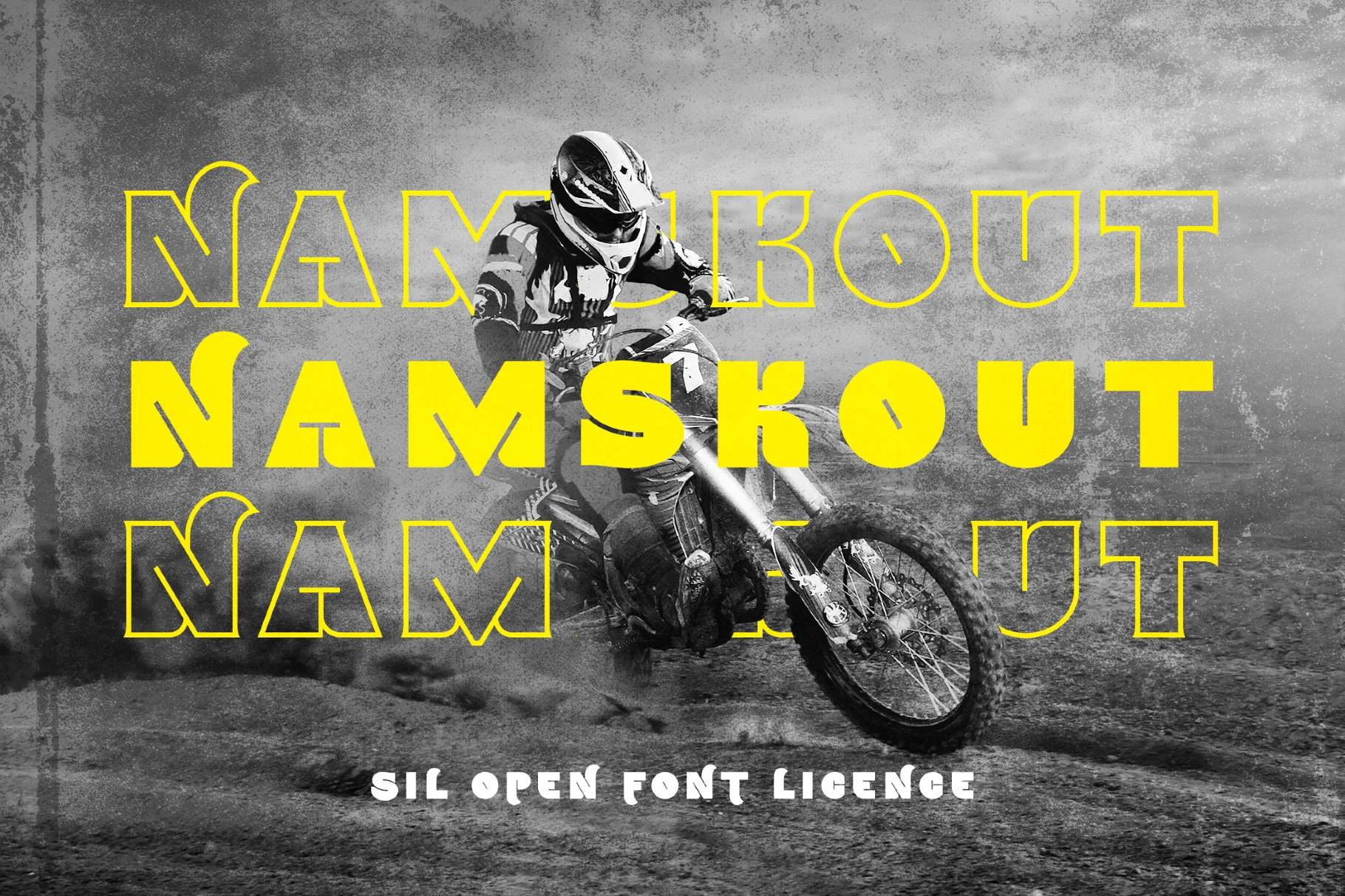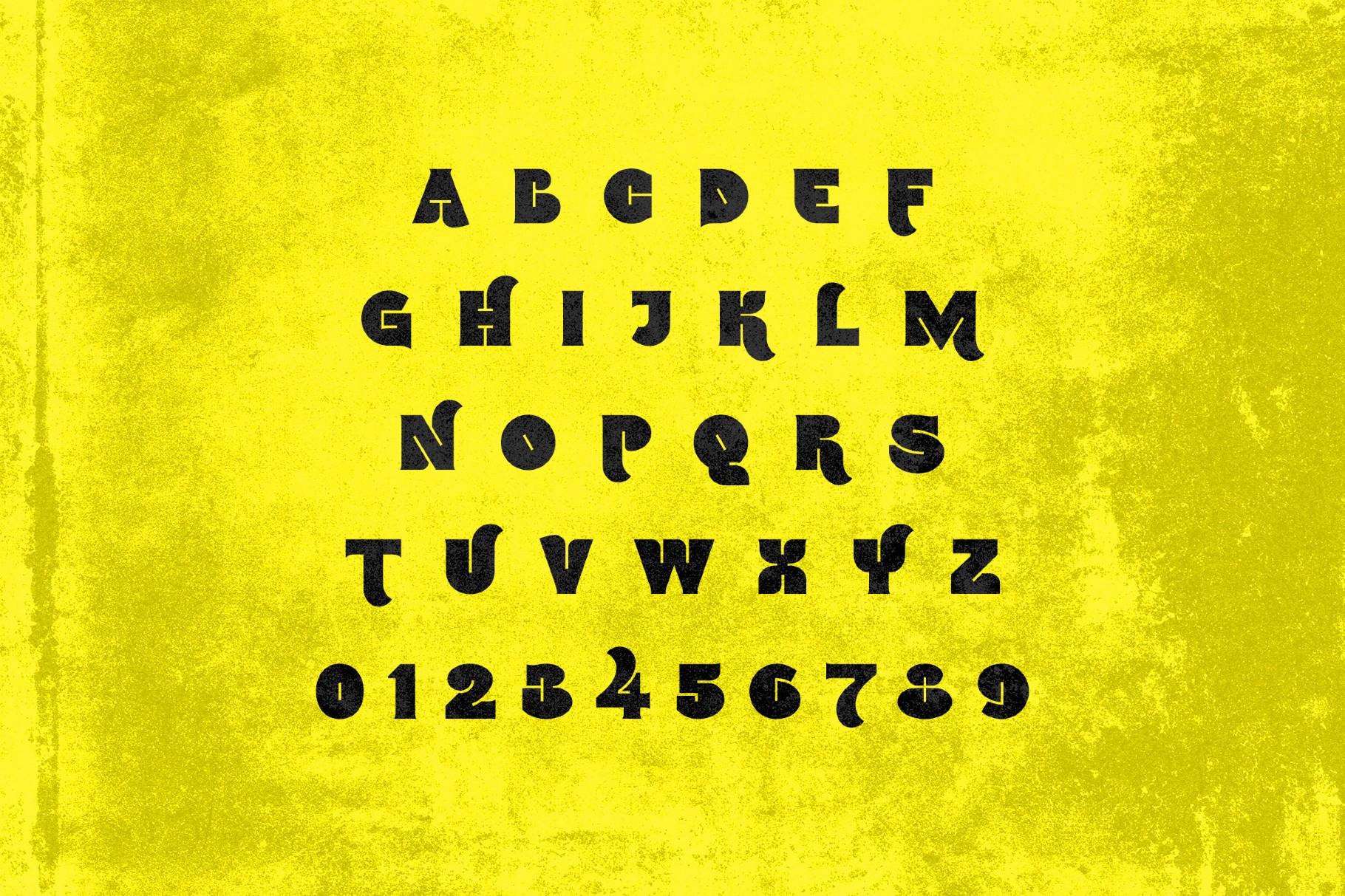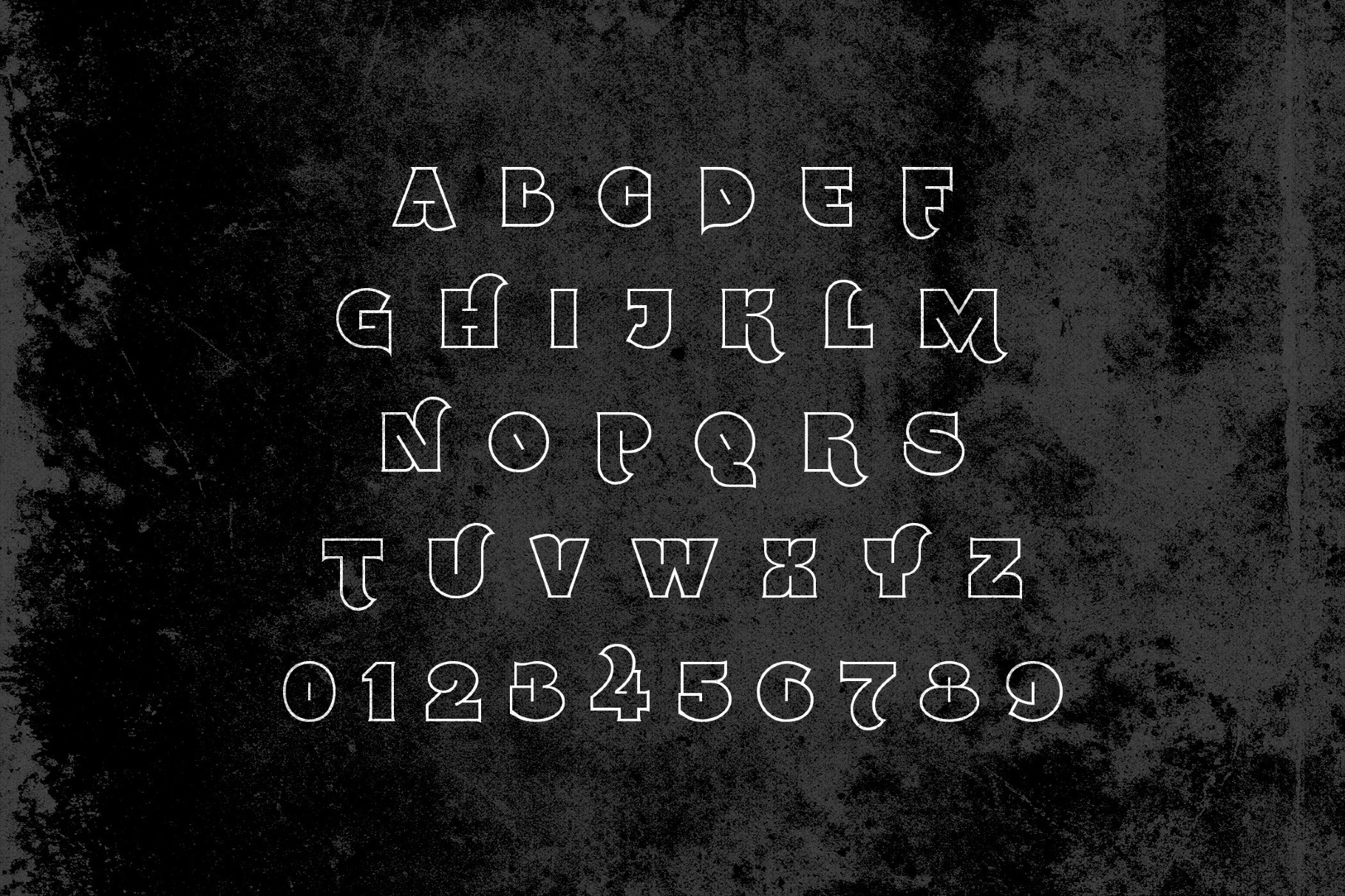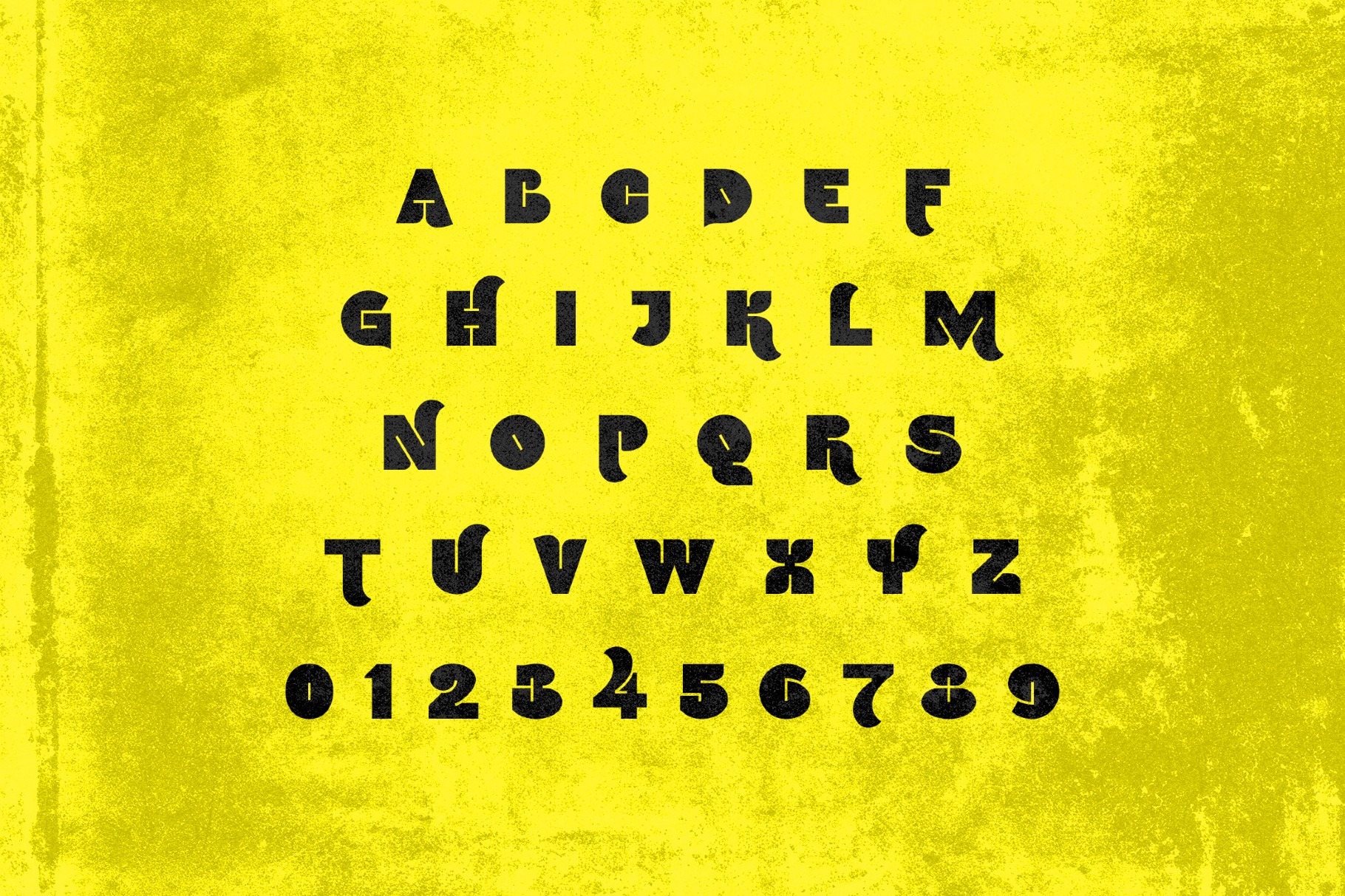
Namskout Font
Namskin
Namskout
NamskoutIn
Namskout slams bold, angular strokes together with aggressive diagonals ripped from graffiti walls and extreme sports posters. It’s a strong fit for esports identities, action-movie titles, streetwear graphics, headlines, sneaker branding, club flyers, packaging, album covers, and social thumbnails.
- Uppercase letters only.
- Multilingual support across extended Latin scripts.
- Stylistic alternates and ligatures.